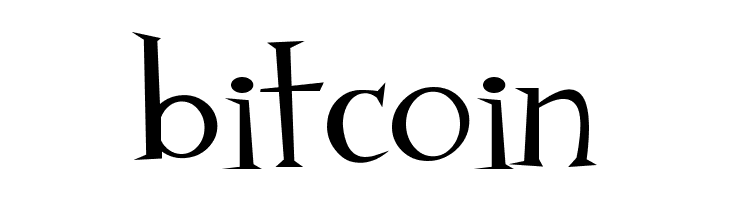
ArabianScript Font
- Font: ArabianScript
( Fonts by Ruben Prol - www.ipanemagrafica.com )
A whimsical and playful serif font with dynamic strokes and unique characters.